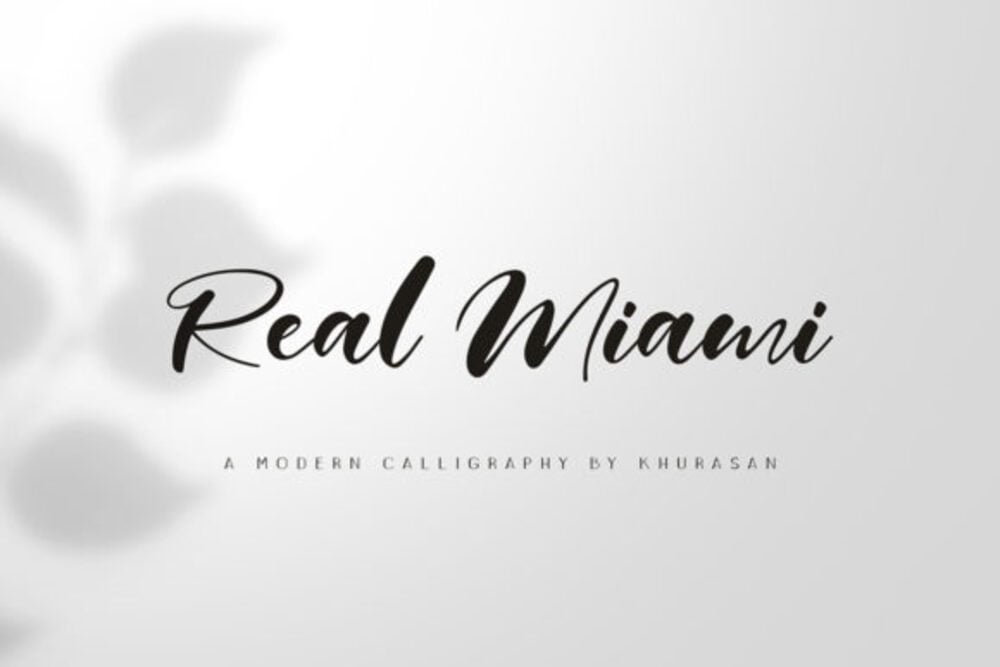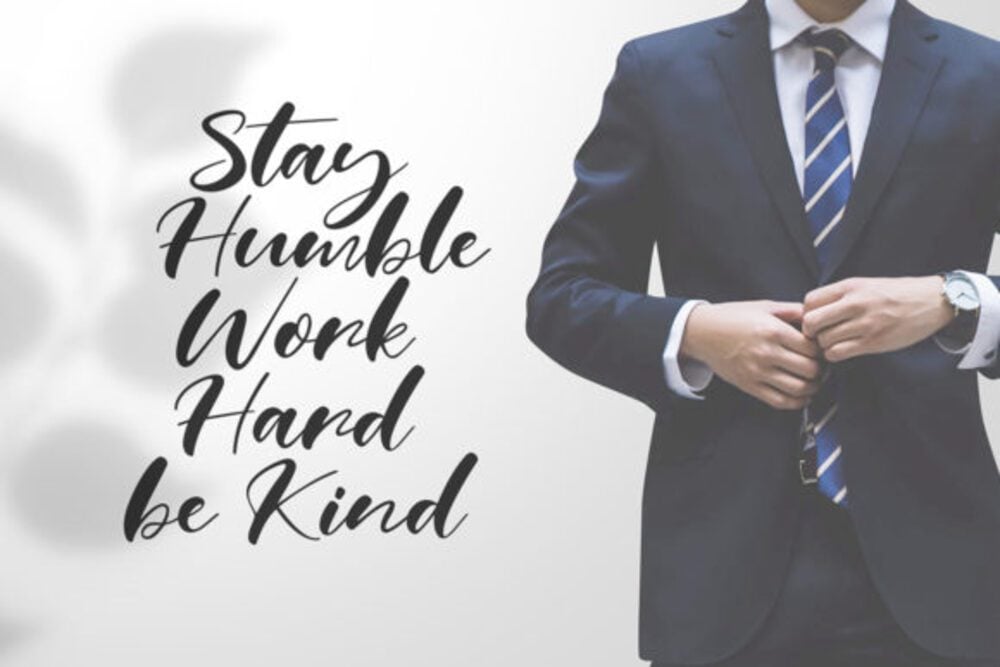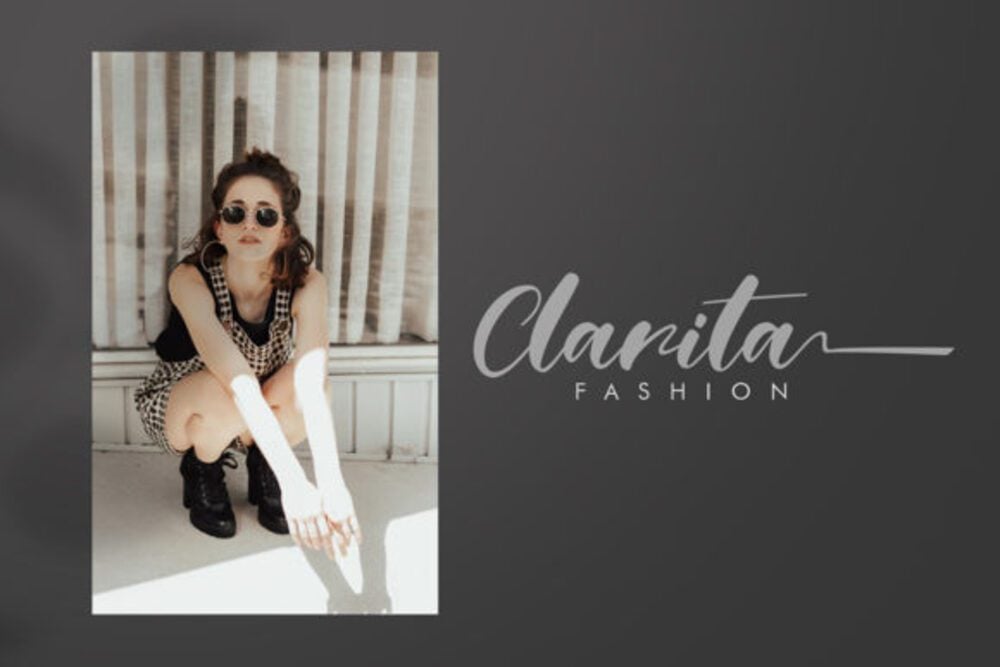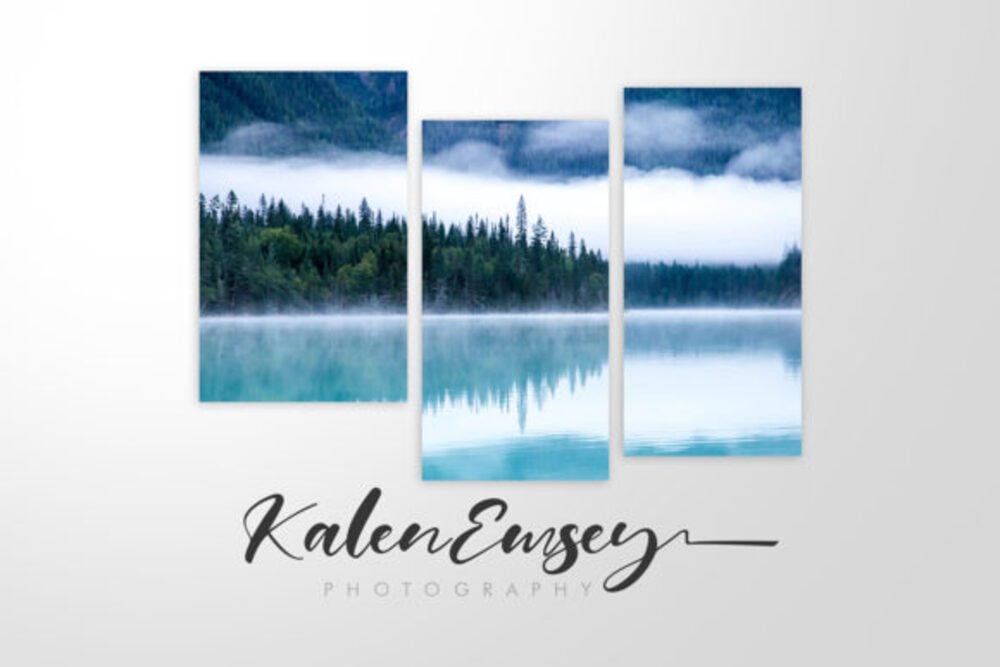
Real Miami Font
Real Miami is a bold and stylish script font inspired by the vibrant spirit of Miami’s nightlife and tropical vibes. With its sleek, flowing strokes and retro-modern appeal, it captures a sense of energy and sophistication. Perfect for logos, branding, fashion, and event designs, Real Miami adds a touch of glamour and warmth, evoking sunny beaches and neon-lit cityscapes.